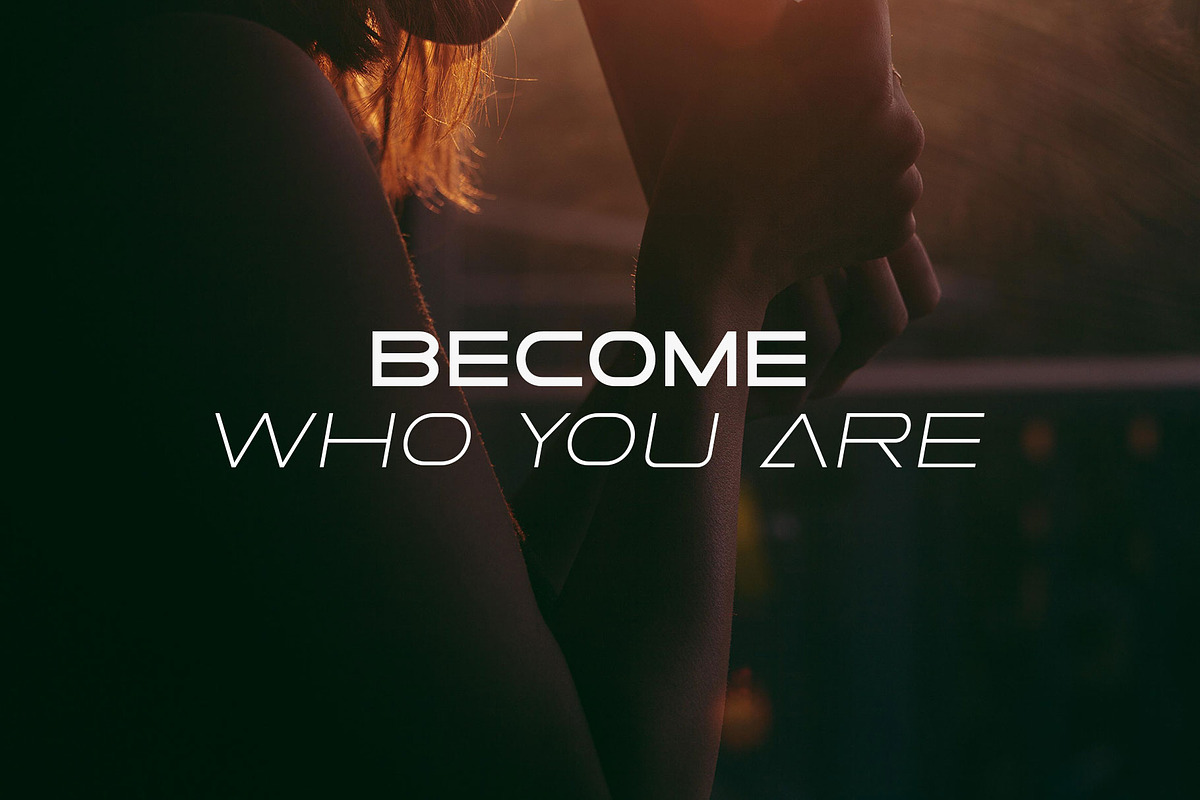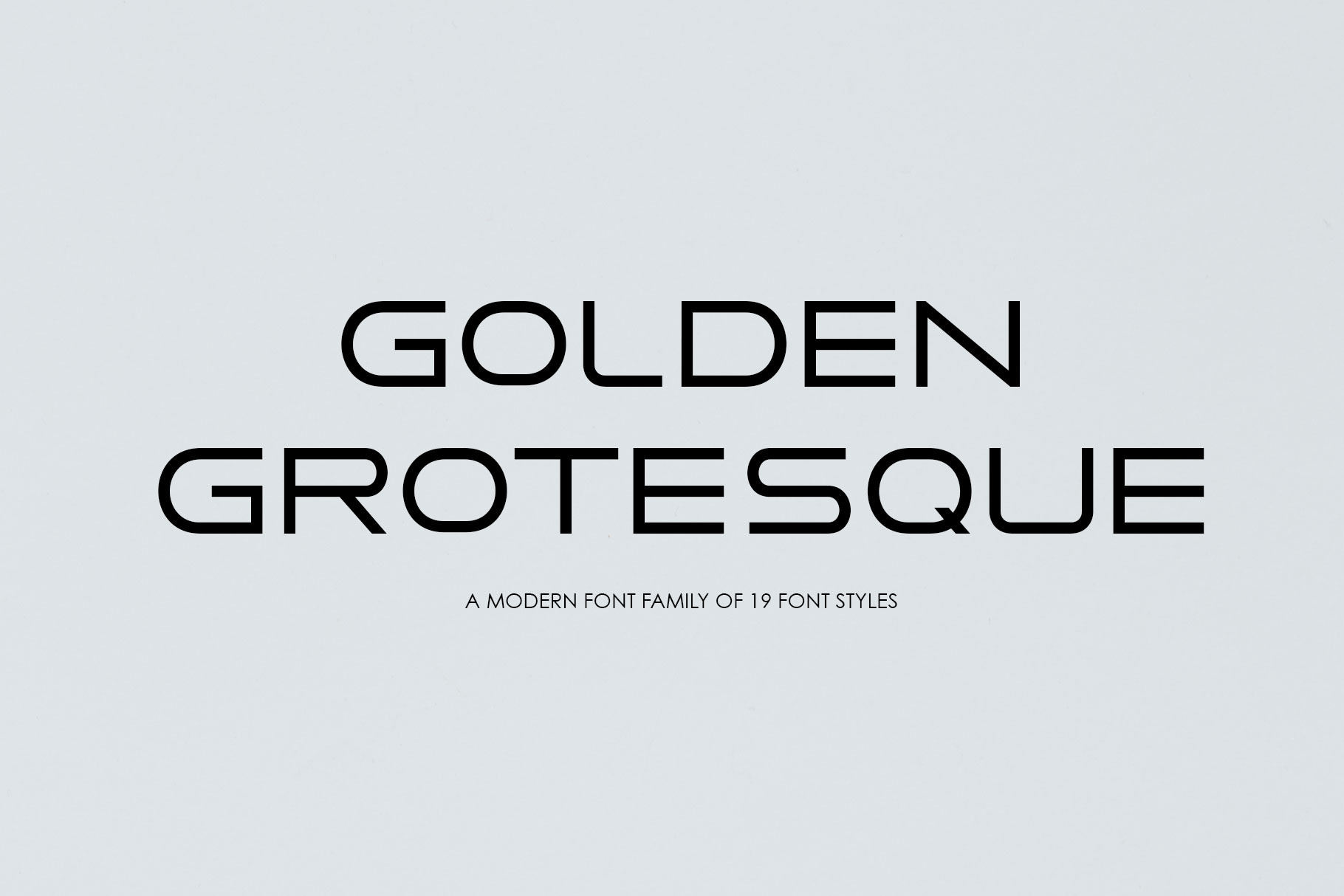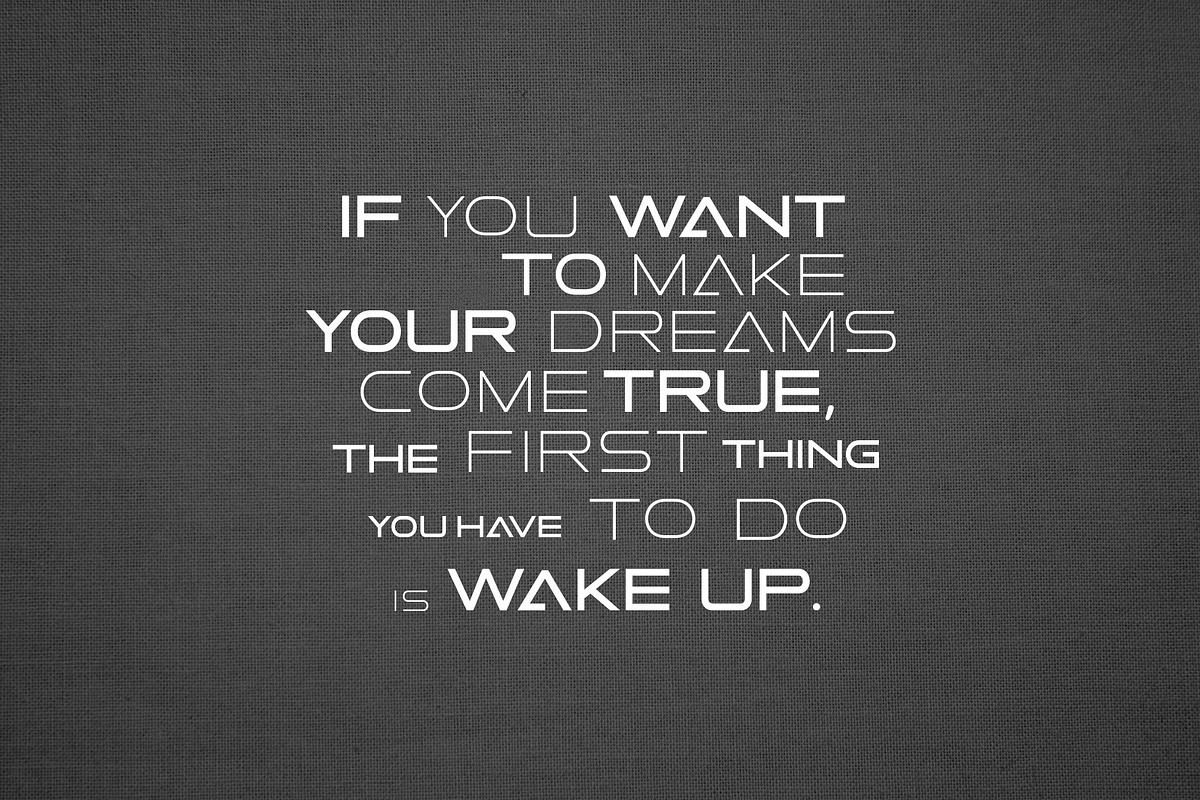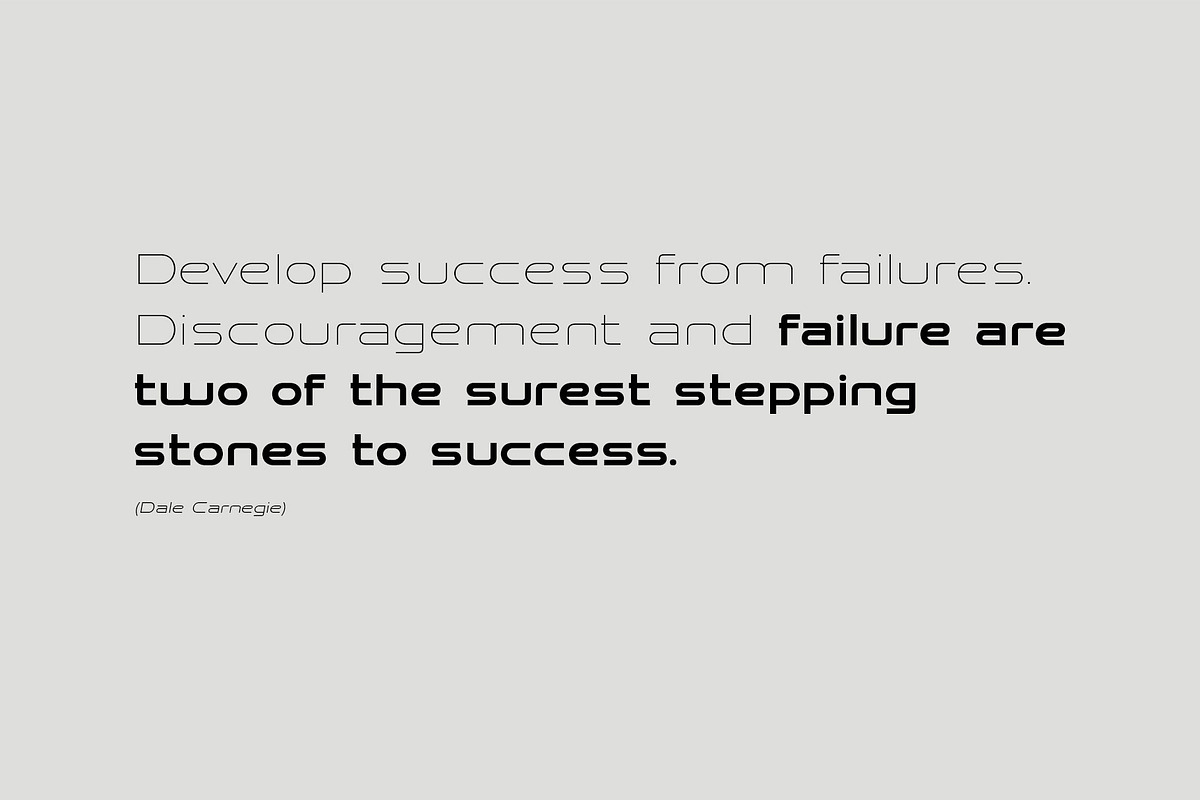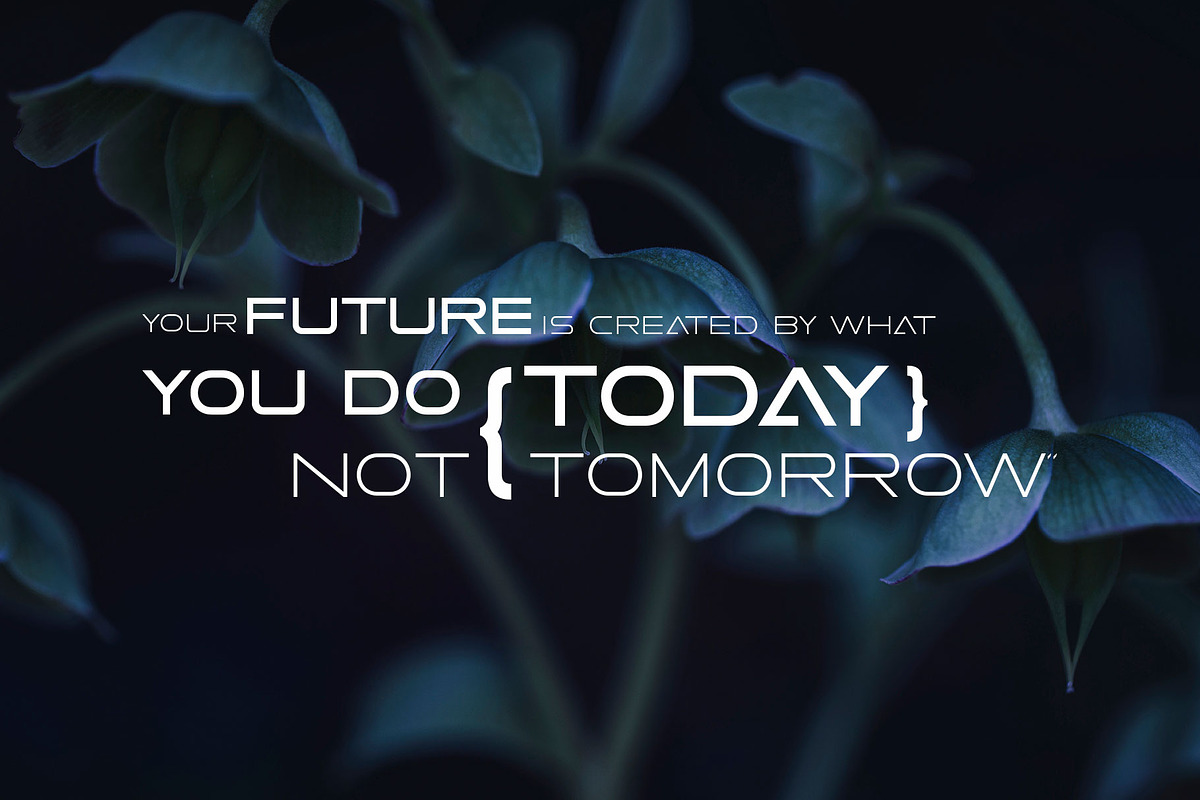
Golden Grotesque-Font Family
Golden Grotesque - Dignified, luxurious and sharp family font. Golden Grotesque is a wide variation on the classic Manifold font family. Its clean and elongated form is technically and elegantly elegant. An excellent typeface for titles, logotypes, user interfaces, and short text.